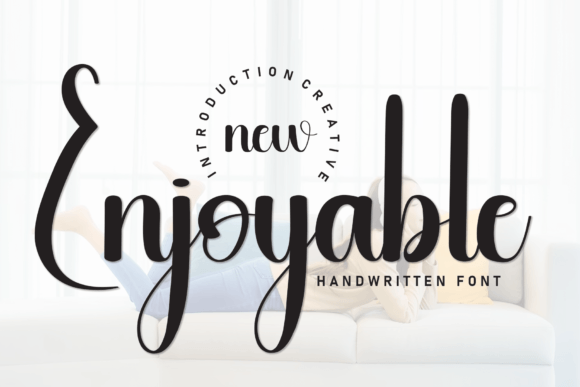
Unleash the charm of Enjoyable: A delightful handwritten font that effortlessly exudes warmth and friendliness. Inspired by the art of penmanship, Enjoyable captures the essence of authenticity and playfulness. Its graceful strokes and elegant curves evoke a feeling of nostalgia and charm, reminiscent of handwritten love letters and heartfelt messages.
Immerse yourself in the beauty of Enjoyable, a script font crafted with meticulous attention to detail. Each letter dances across the page with a unique personality, adding a touch of whimsy and delight to your creative projects. Whether you're designing wedding invitations, greeting cards, logos, or social media graphics, Enjoyable will lend an irresistible charm that captivates your audience.
Experience the versatility of Enjoyable, a font that adapts seamlessly to a wide range of design styles. Its playful nature lends itself perfectly to whimsical illustrations, while its elegant lines add a touch of sophistication to formal documents. From cheerful birthday cards to professional presentations, Enjoyable effortlessly elevates your designs with its timeless appeal.
Step into a world of boundless creativity with Enjoyable, your go-to font for expressing heartfelt emotions and captivating messages. Its enchanting aura transforms ordinary words into heartfelt expressions, making it the perfect choice for personal branding, blog posts, and heartfelt notes. Let Enjoyable be your creative companion, adding a touch of magic to every project you embark on.